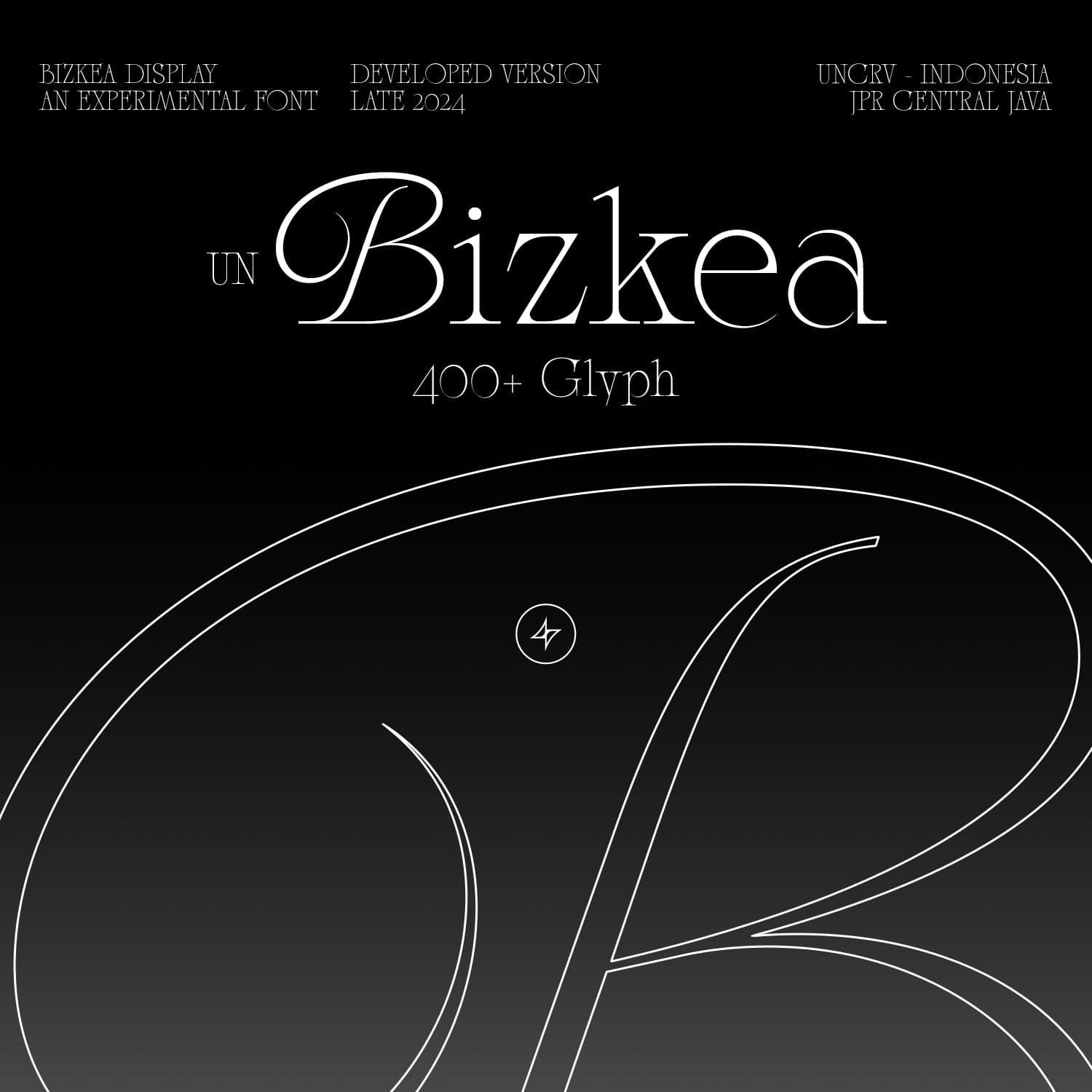
<p><strong>Bizkea</strong> is a unique display font that seamlessly blends the classic elegance of Garalde fonts. By reinterpreting the artistic and visual richness of these styles towards a more modern and contemporary approach, the result is a timeless font with character and versatility.</p>